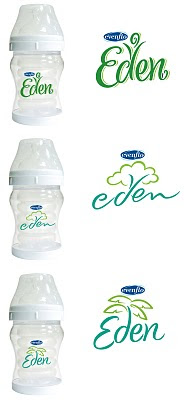
My responsibility for this assignment was to create lettering with reference to nature. This image is the first stage of concept sketches sent to the design director. Several sketches were selected for further development to be created as vector art.
Scanned concept sketches I use for drawing templates in Adobe Illustrator are no more than quick visual reference guides. I have a tendency to change letterform shapes while drawing the vector art. A lot of script lettering I create starts as thin lines drawn over the template image. The line weight is altered to a similar thickness as the template image and changes occur along the way with small flourishes or swashes.
This screenshot shows the difference between the sketch and the vector art. The "en" combination of the sketch is too condensed and was changed while creating the vector art. Lettering has to be readable or it fails. It is very important to adjust the black and white contrast of letterforms to allow the human eye to read them.
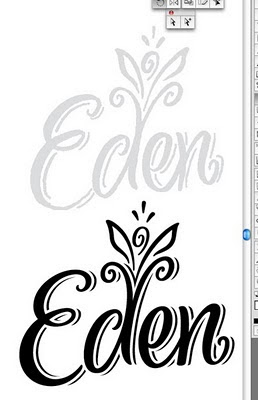
This final image is the lettering as comp presentation created by the design director at Ionic.